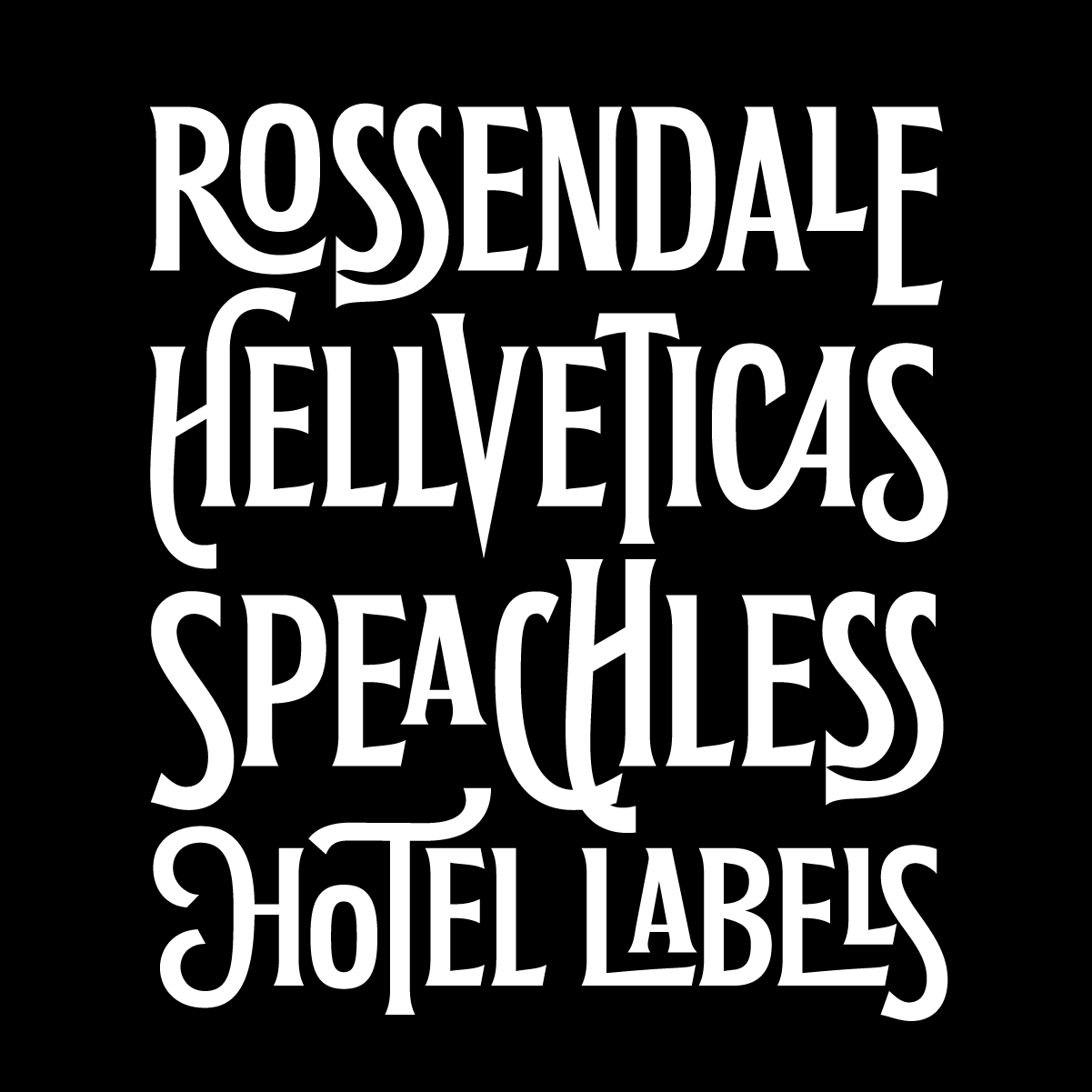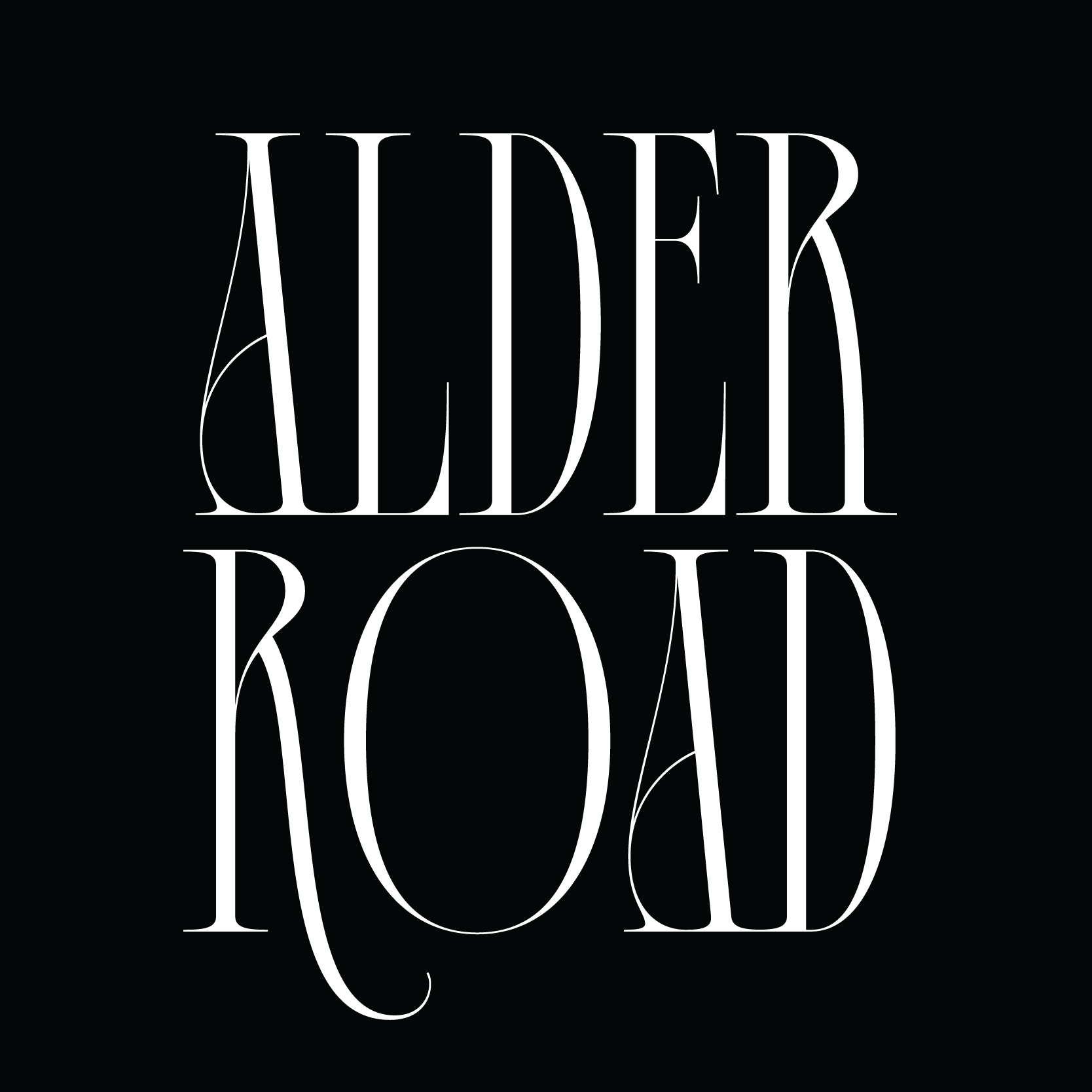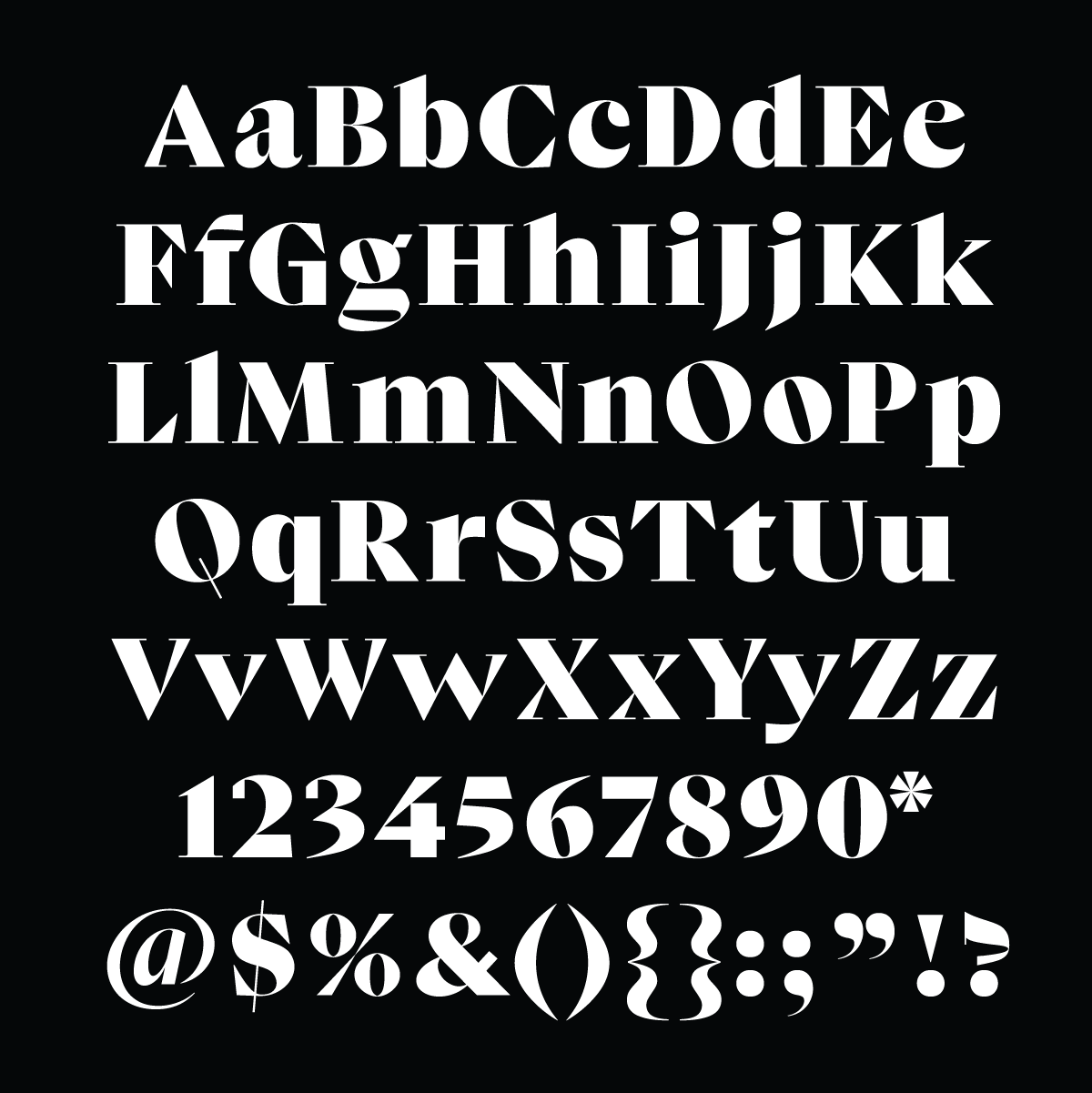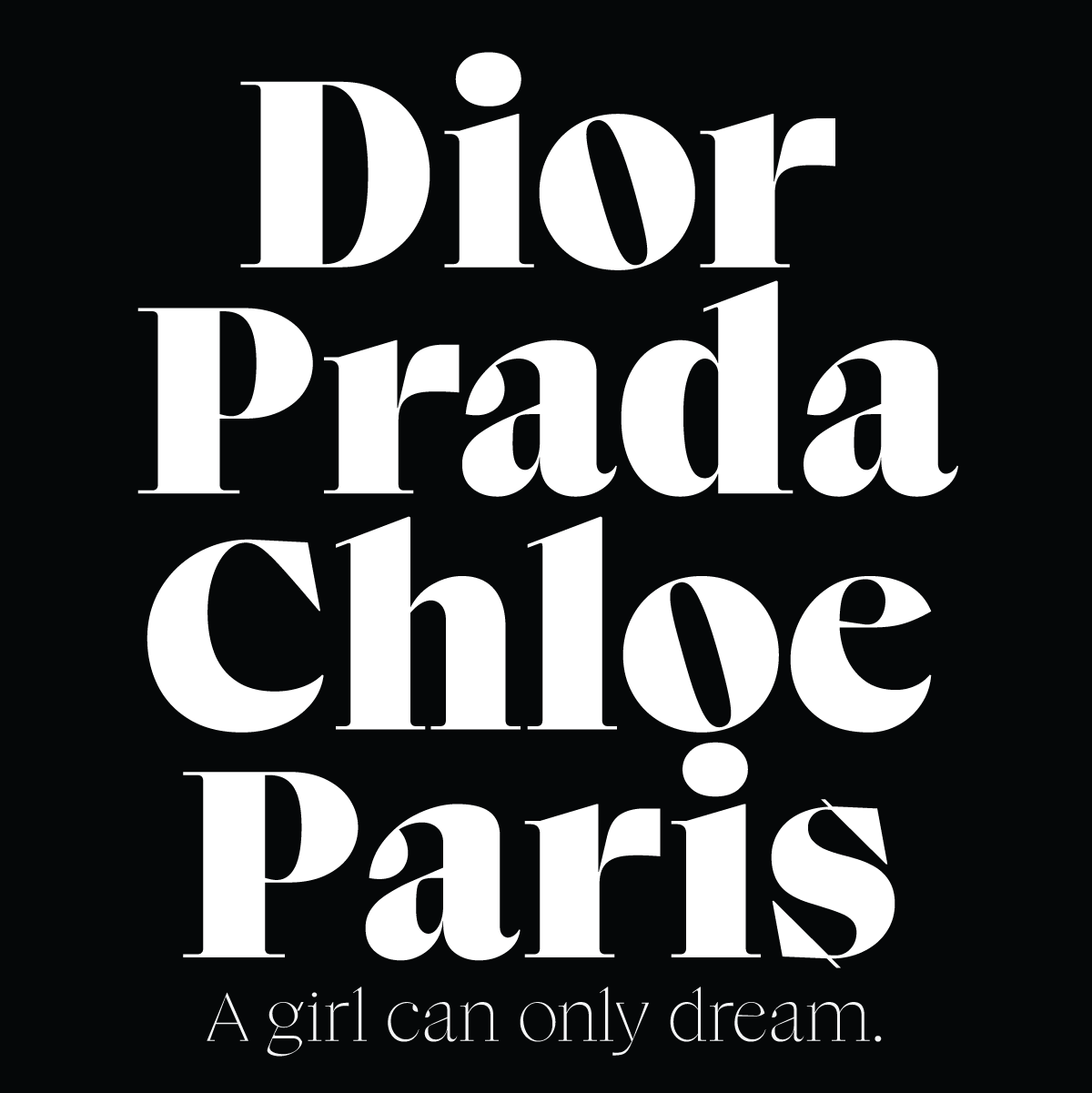
Palace by Andrei Robu
Palace is a tribute to the vintage luggage labels from the Belle Epoque. It's amazing for book covers, posters and display projects with a large array of ligatures and alternates to choose from.
Alder Road by Simon Walker
Alder Road is an ultra-condensed one weight serif face in the Didone tradition. With some playful art nouveau details scattered throughout this typeface is perfect for display projects.
Sweep by Felipe Calderon
Sweep is a contemporary take on the classic Caslon. Using the nib pen as reference it mixes geometric and organic shapes creating bold and unexpected letters. Perfect for display purposes, for editorial or branding projects.